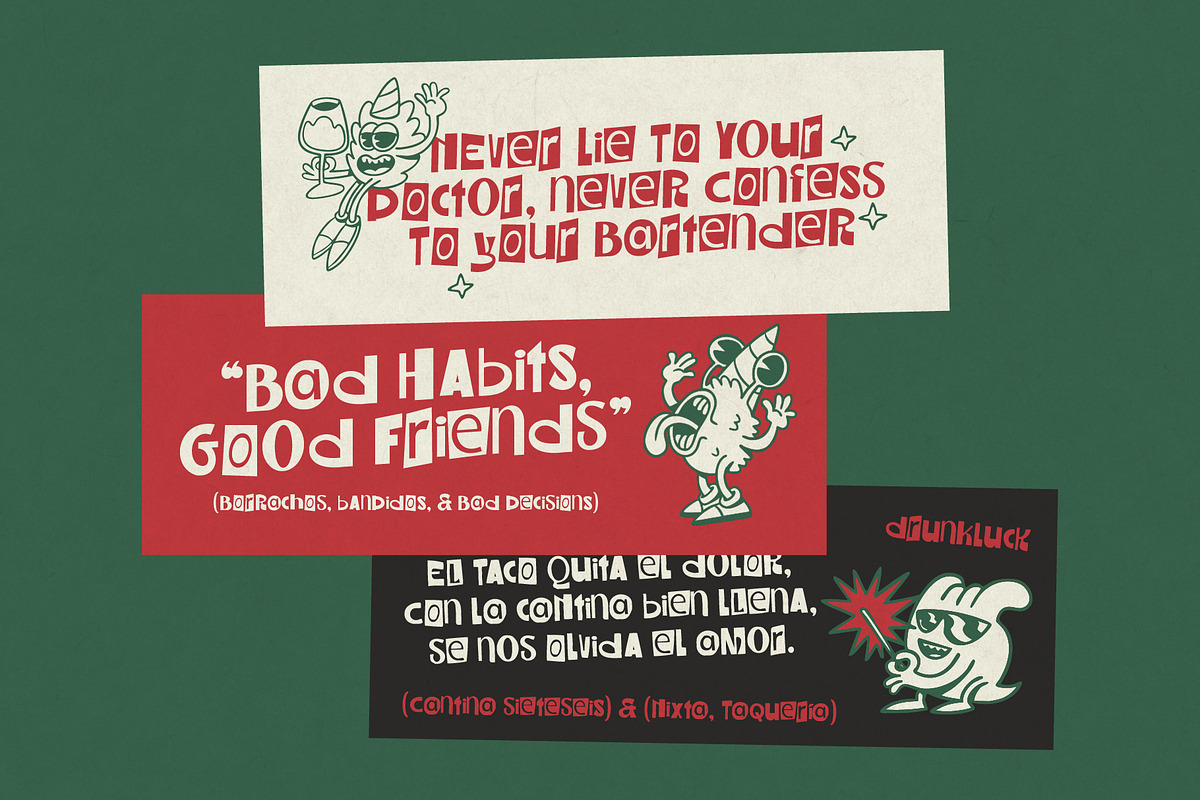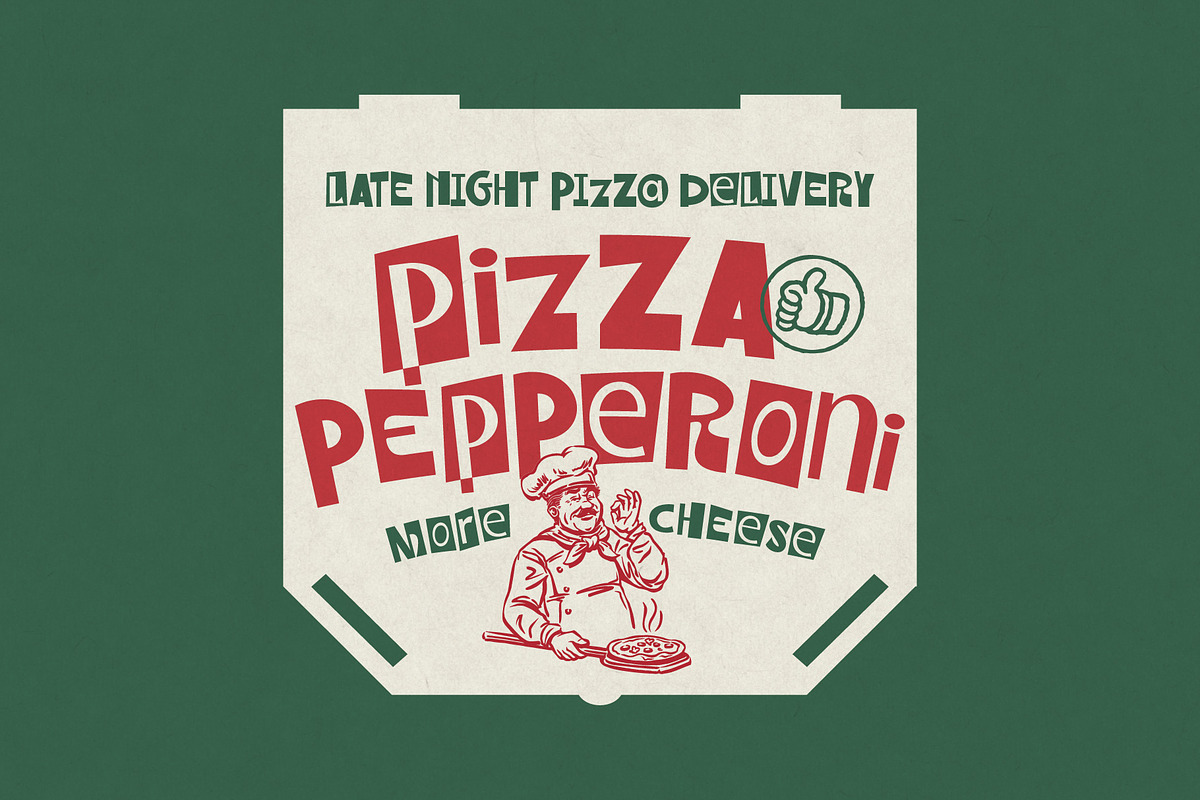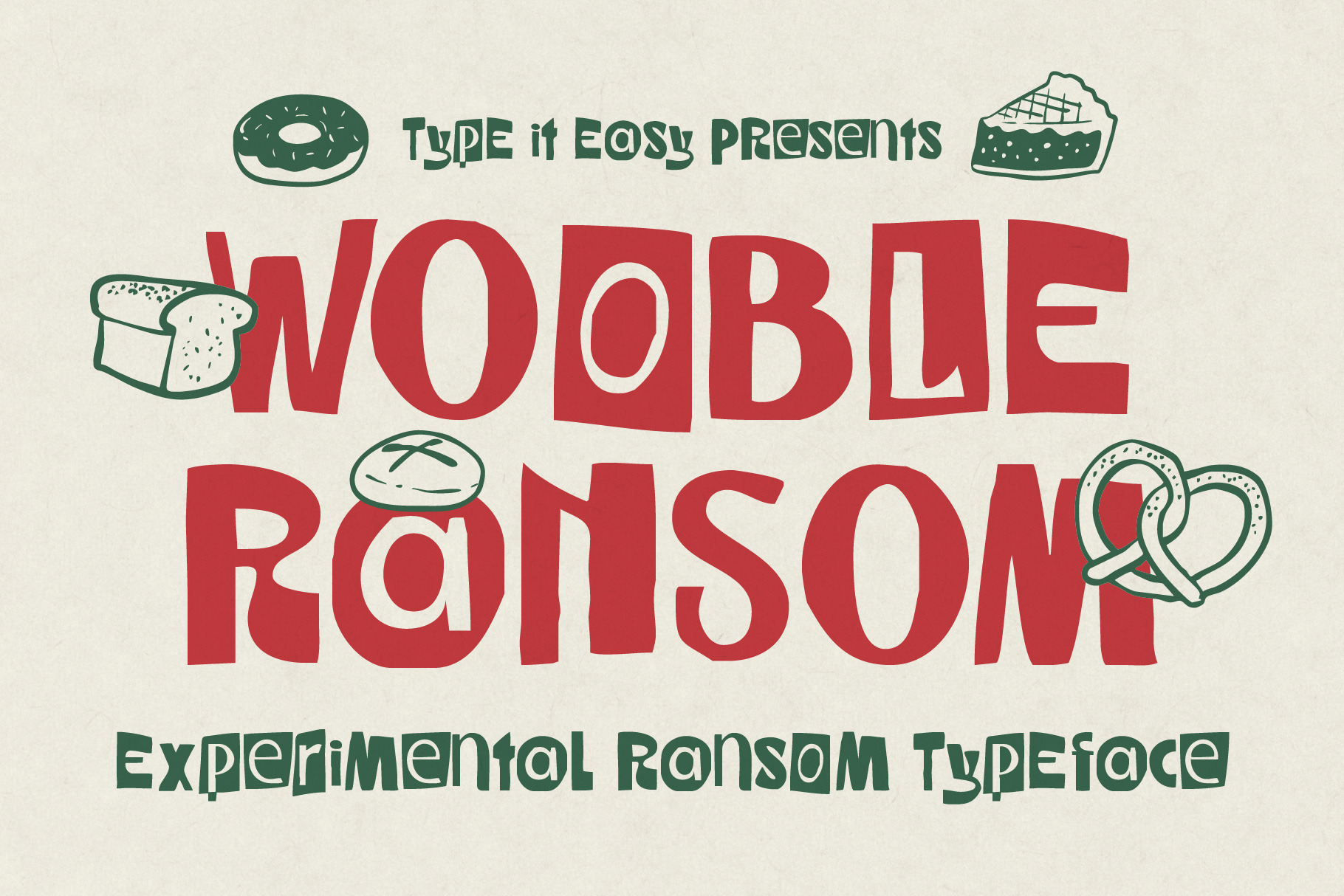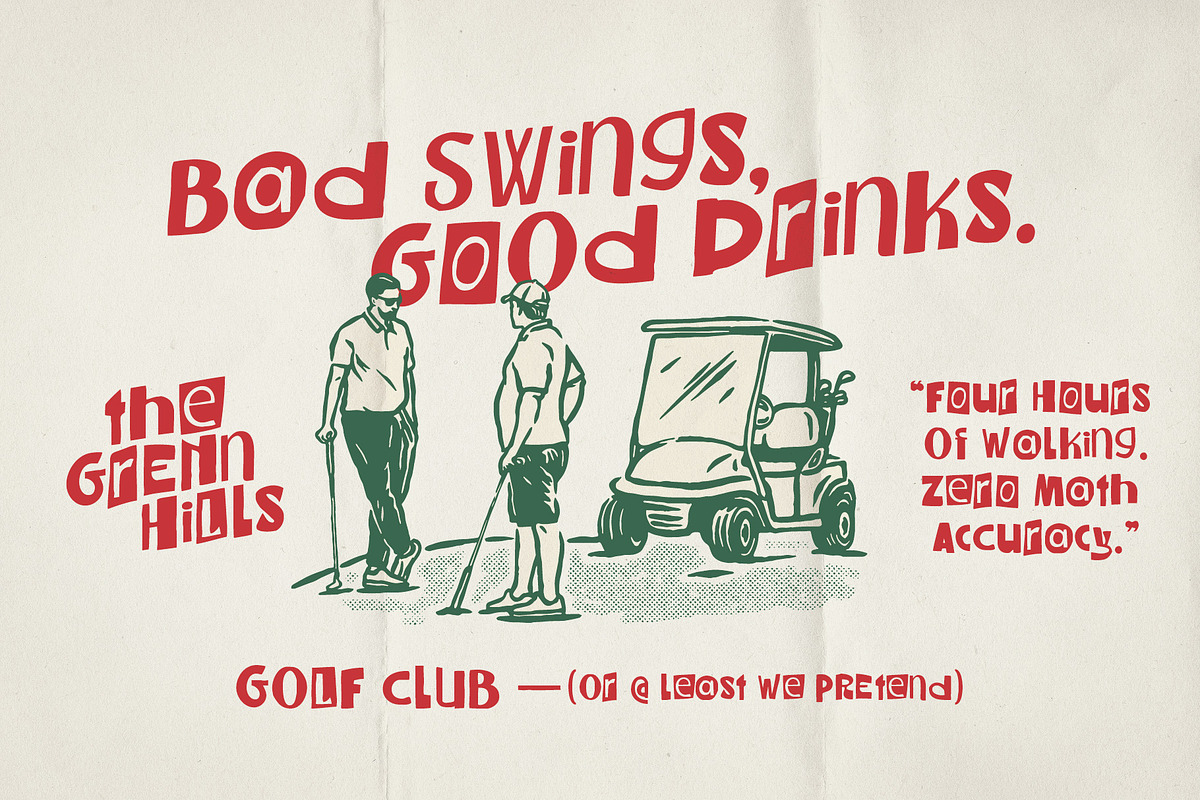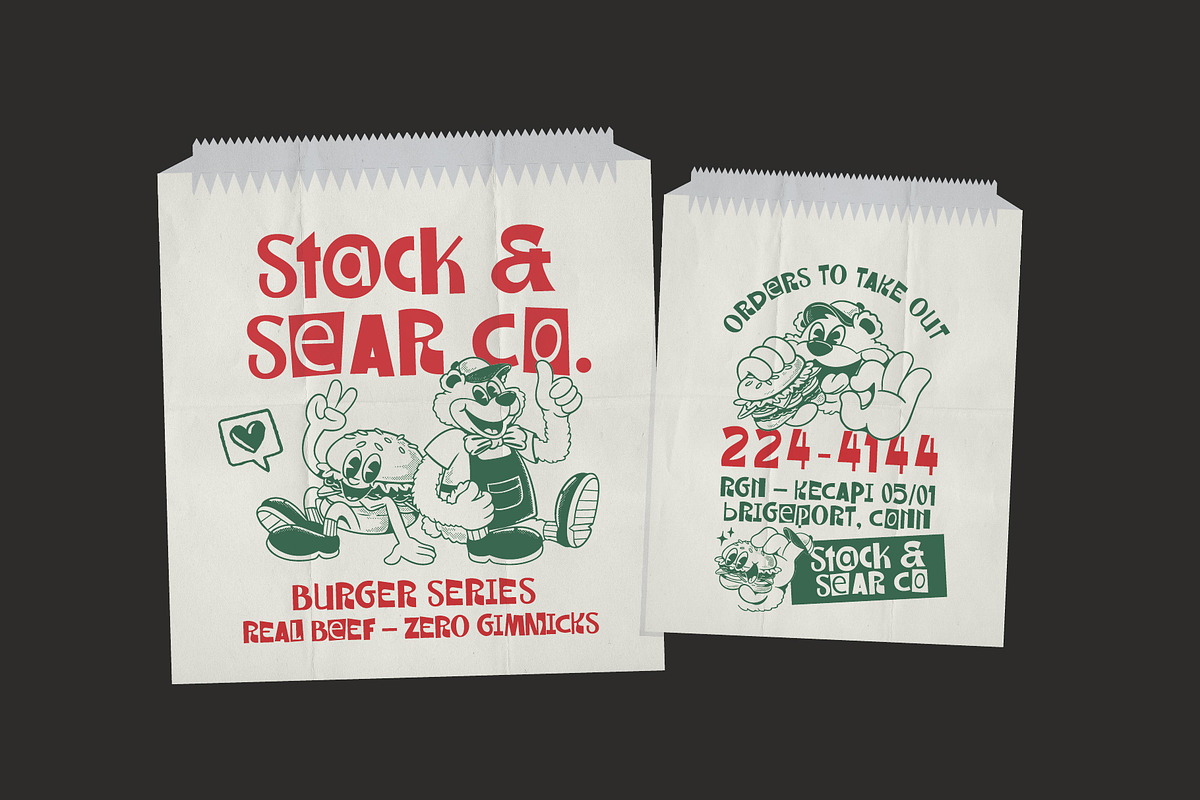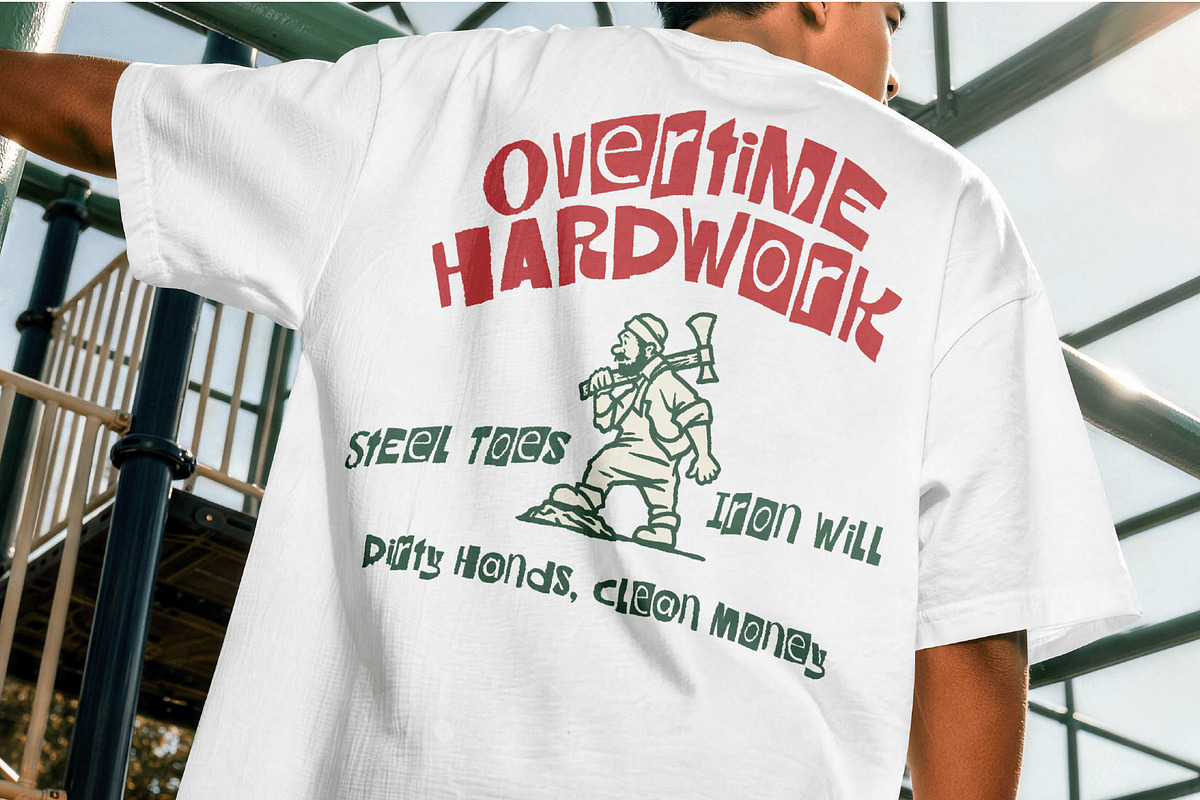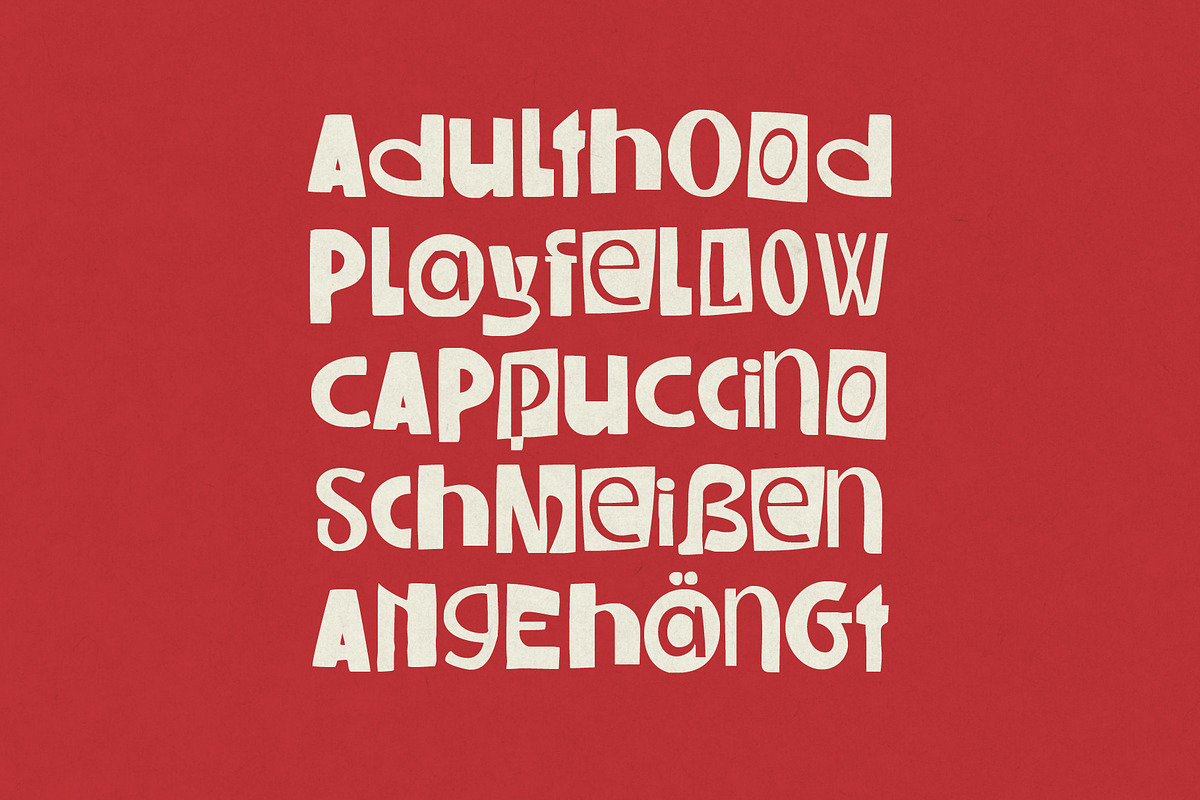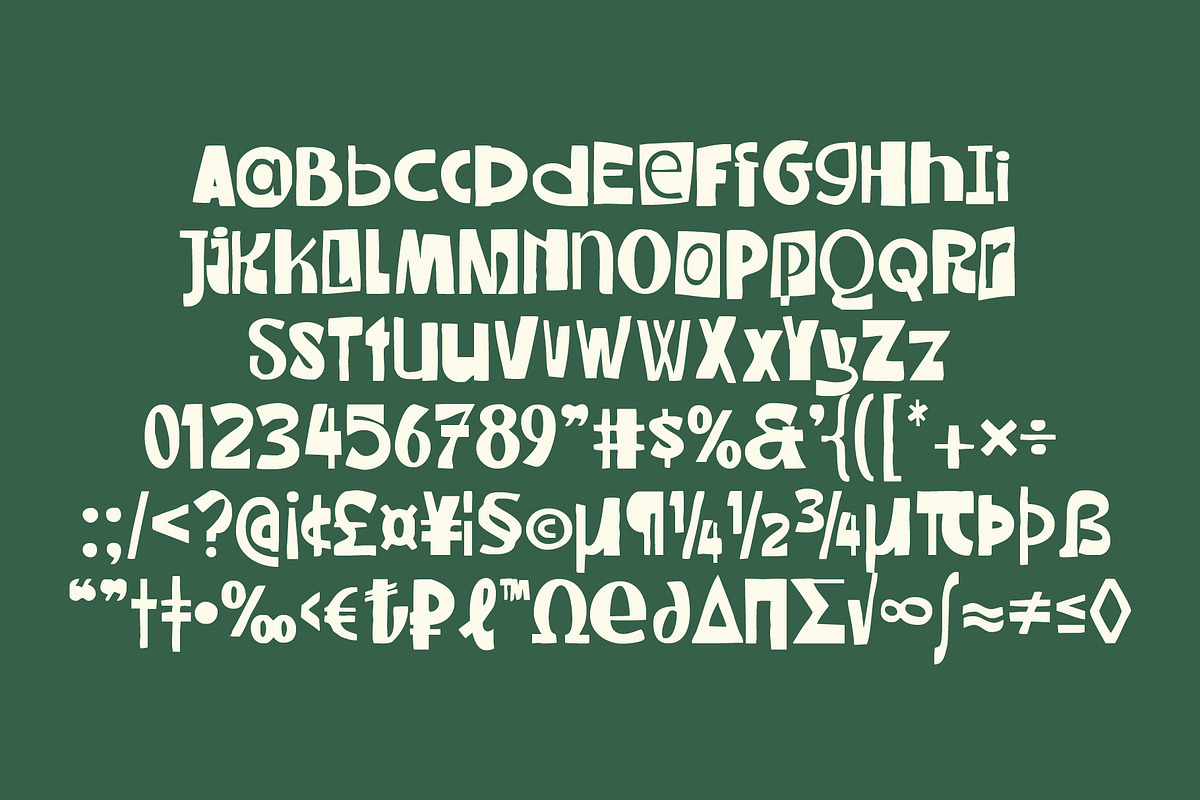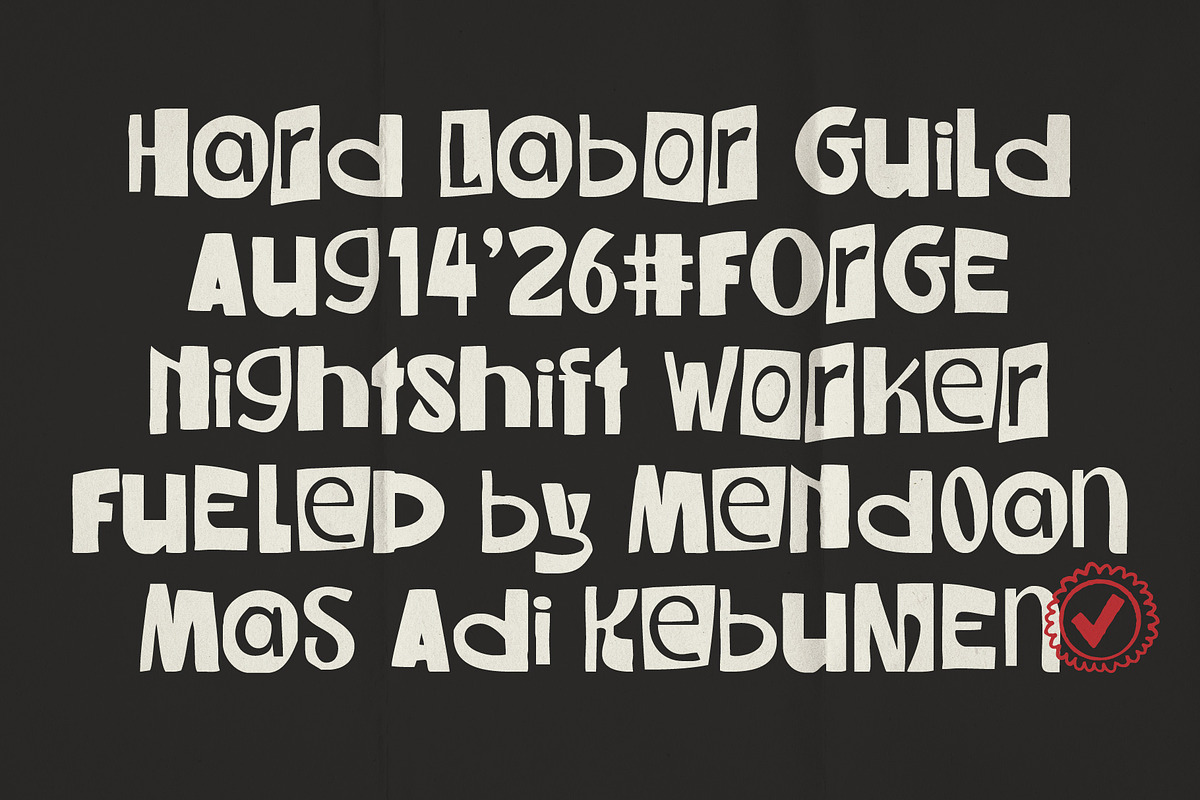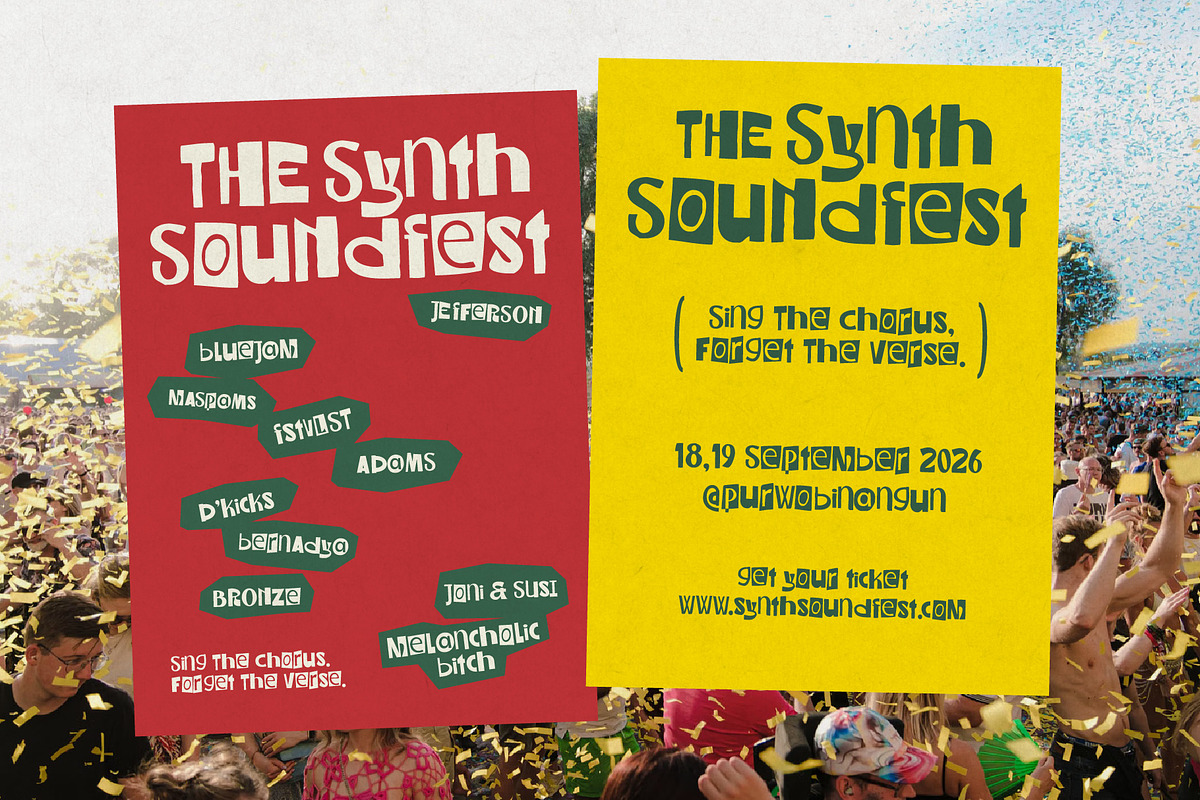
ST Wooble Ransom – Experimental Font
Quirky, bold, and unapologetically playful.
ST Wooble Ransom is an experimental display typeface inspired by the chaotic charm of paper cutouts and classic ransom note aesthetics—reimagined with a soft, doughy, organic rhythm. Each character features irregular block cutouts, bouncy baselines, and chunky silhouettes designed to give your typography an instant handcrafted punch.
Whether you are crafting food & bakery packaging, punchy retro posters, music gig graphics, playful merchandise, or eye-catching social media headlines, ST Wooble Ransom brings maximum personality with minimal effort.
Expressive Paper-Cut / Ransom Aesthetic: Dynamic contrast between positive and negative shapes for high-impact headlines.
Playful & Organic Geometry: Wonky, hand-cut silhouettes that maintain strong legibility.
Versatile Display Usage: Perfect for packaging, branding, apparel, editorial layouts, and event posters.
Character Set: Uppercase, numerals, punctuation, and essential symbols (OTF, TTF, WOFF/WOFF2 formats included).
Recommended For:
Food & beverage packaging (bakery, snacks, coffee, artisanal goods)
Bold editorial covers, magazine spreads, and zines
Gig posters, album covers, and event merchandise
Brand identities looking for a fun, rebellious, or nostalgic craft vibe